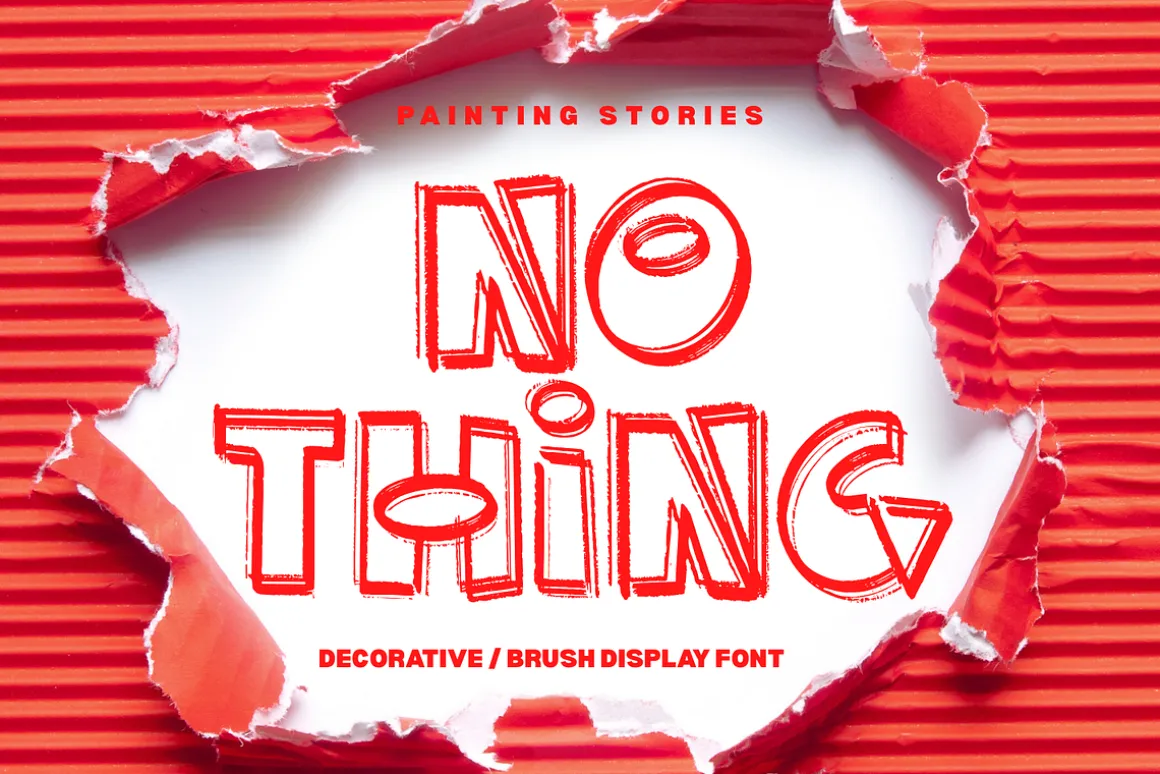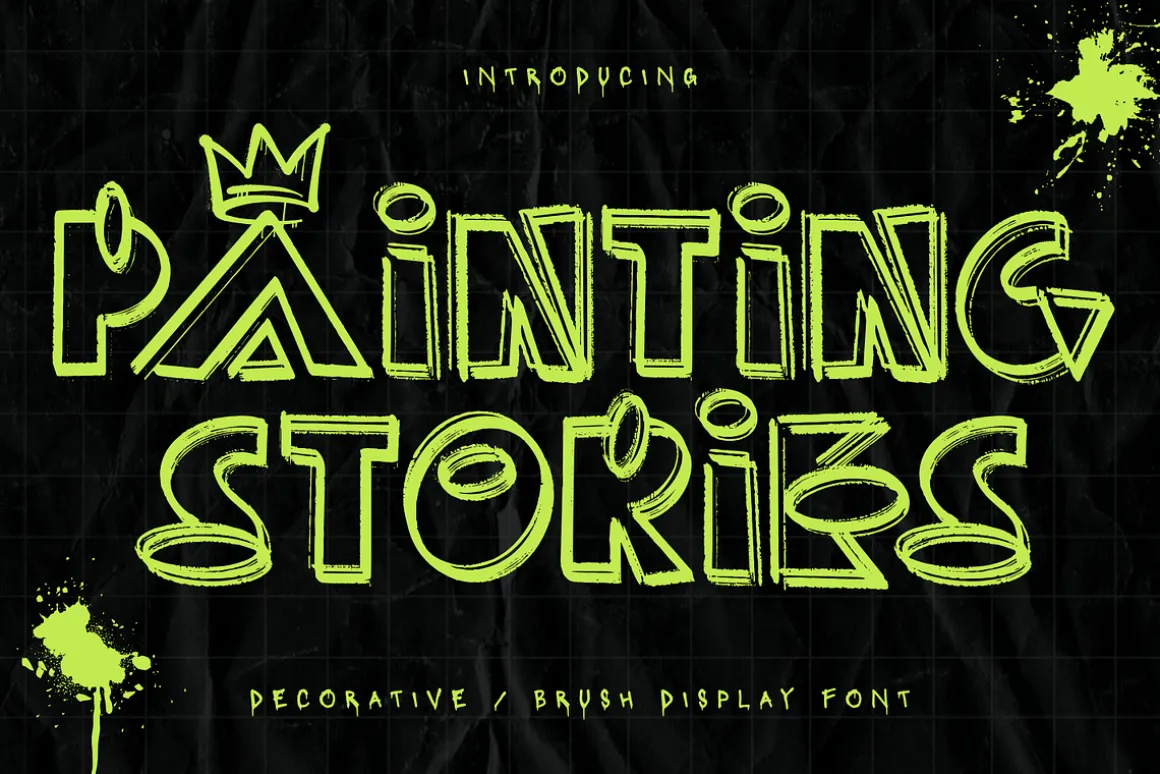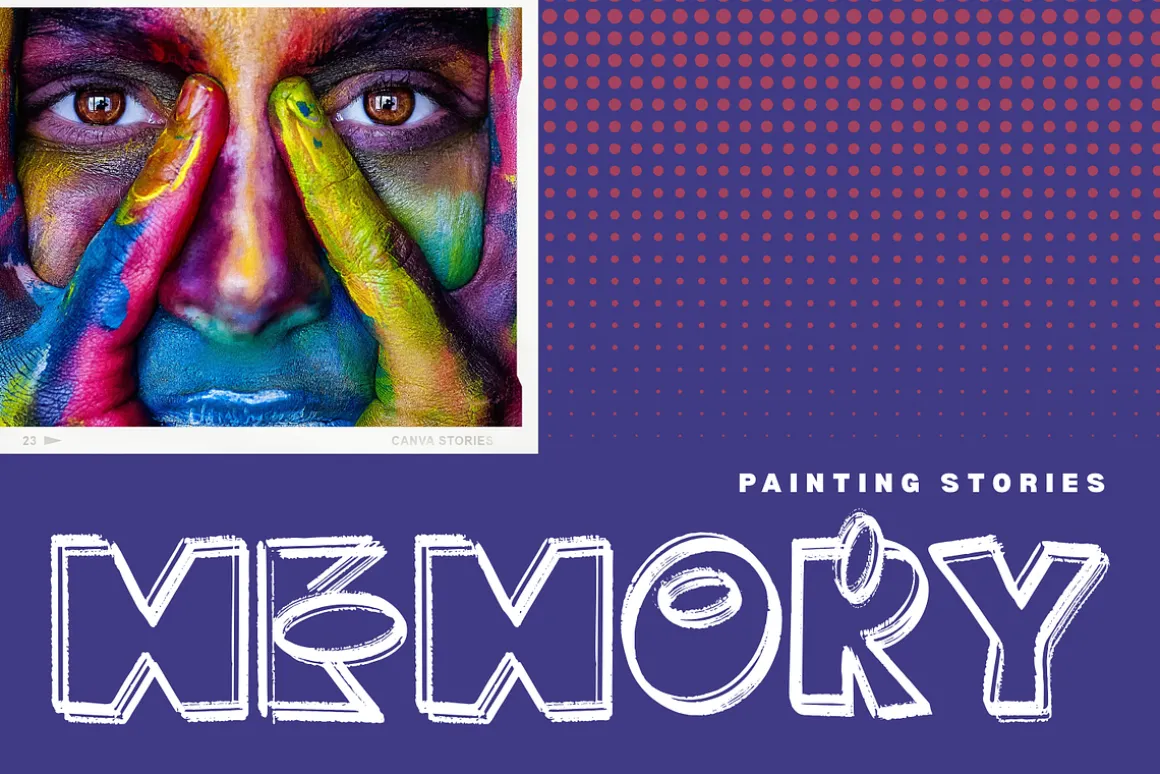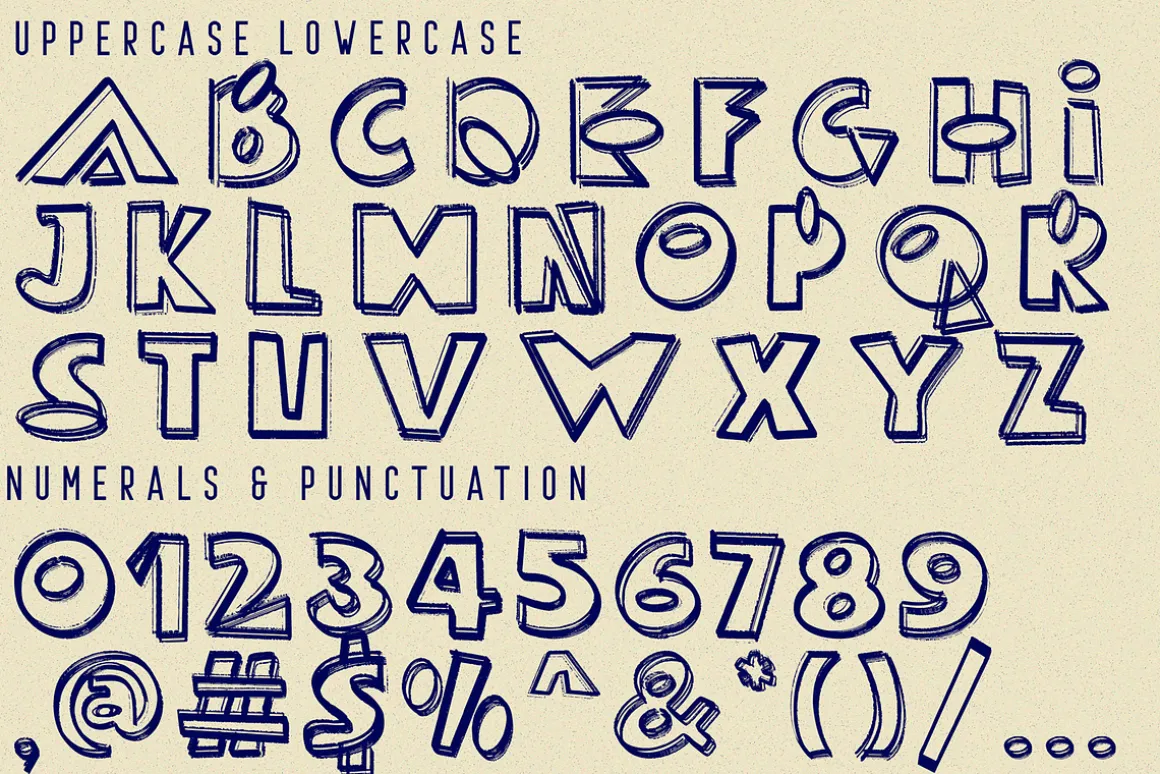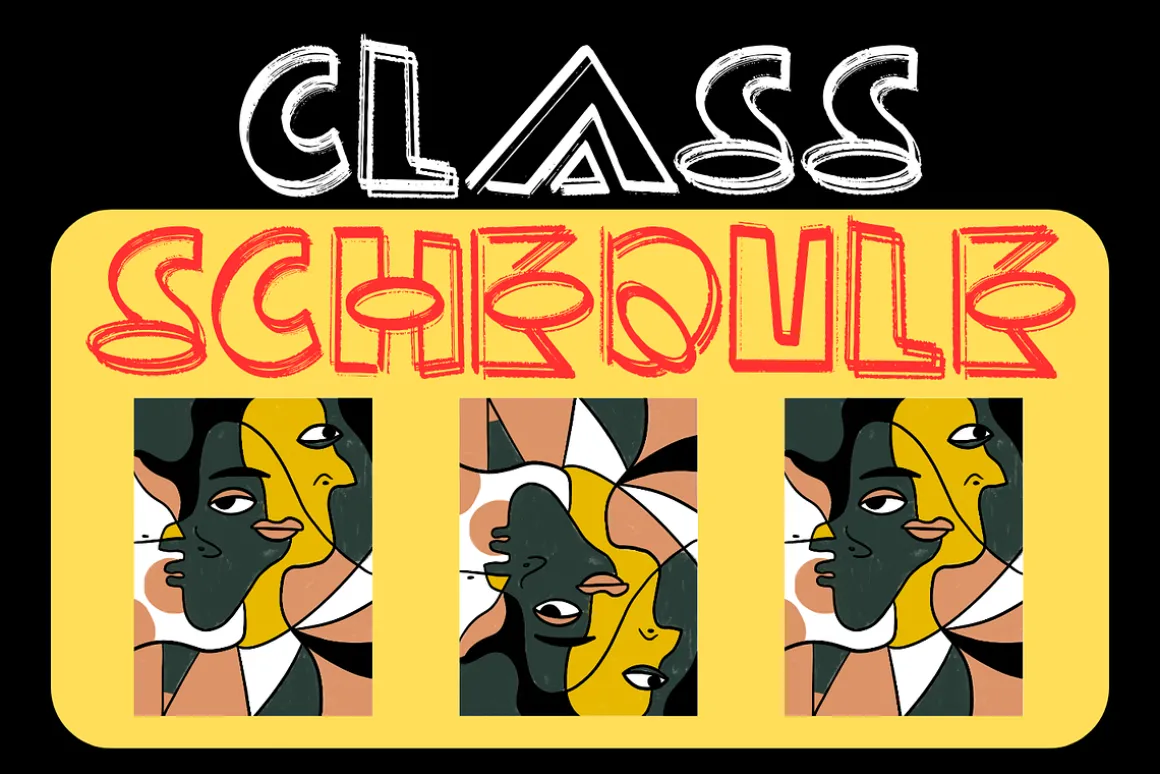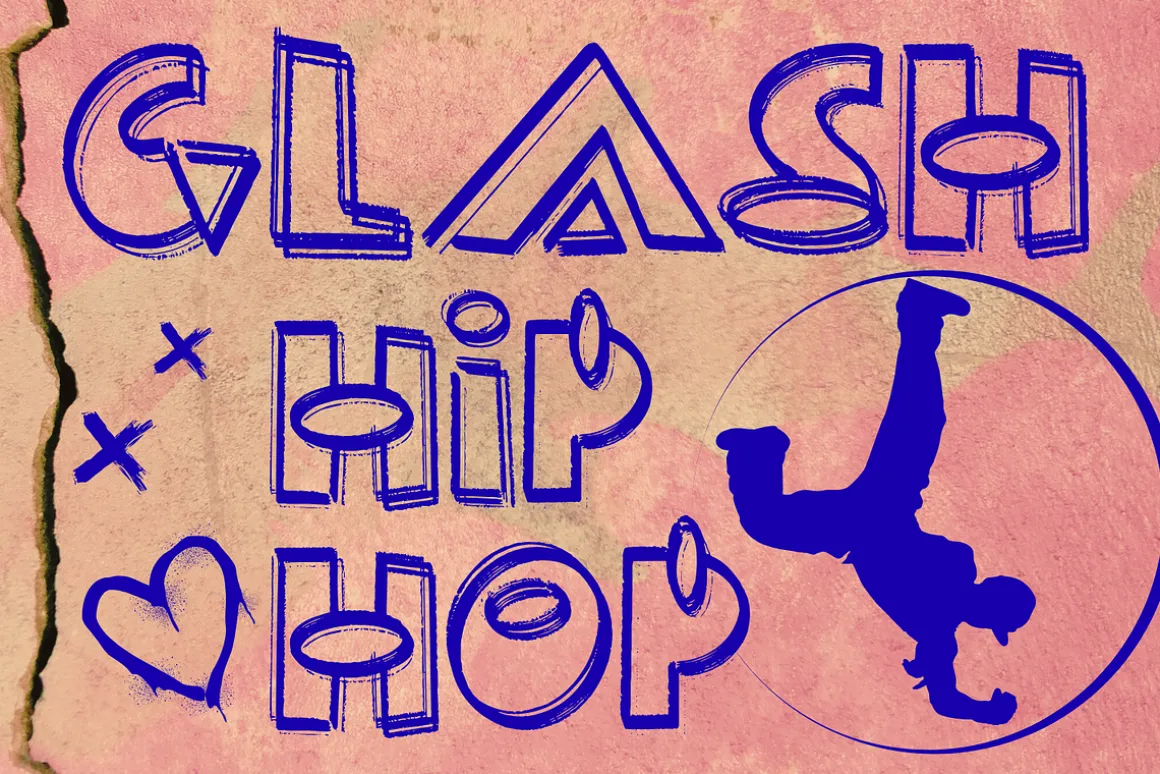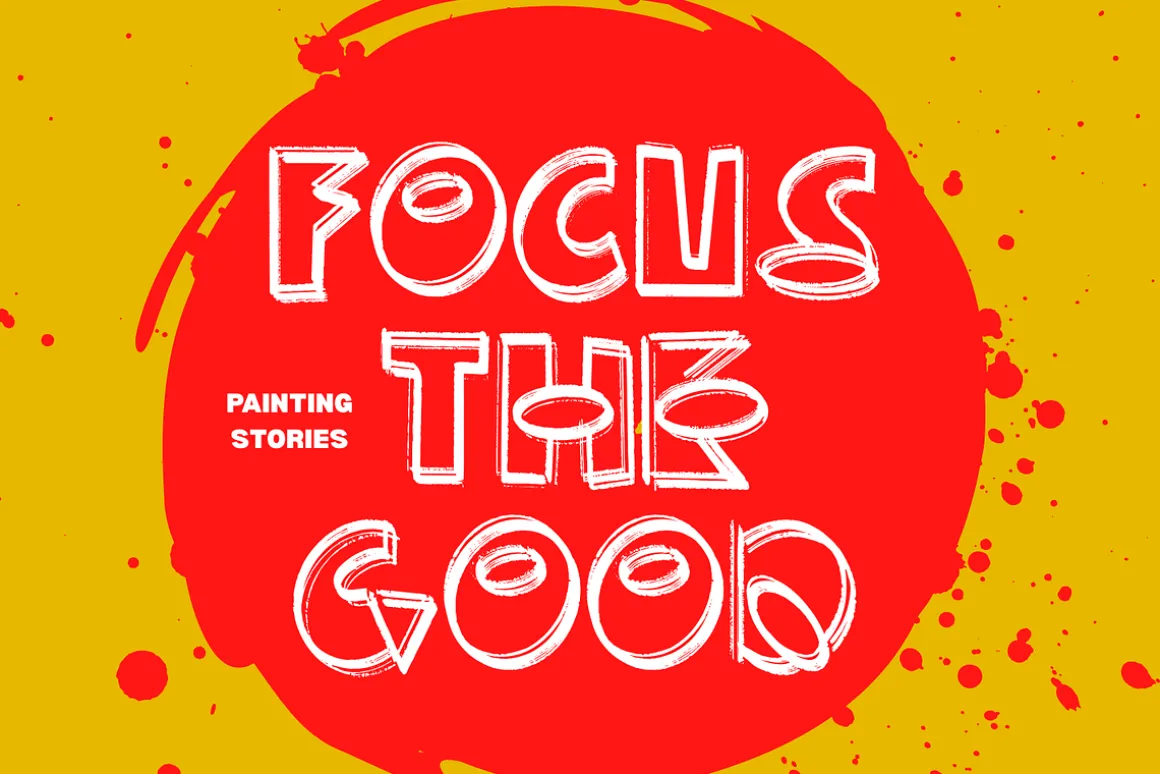
Painting Stories – Hand-Drawn Font – A Bold Graffiti Hand-Drawn Display Font, is a striking graffiti-inspired display font that combines raw street art energy with hand-drawn sketch aesthetics. Each character is crafted with rough strokes, uneven textures, and spontaneous brush-like details, evoking the vibrancy of urban walls and rebellious creativity. This font embodies a gritty yet artistic spirit, making it perfect for music posters, streetwear branding, youth campaigns, editorial headlines, and any design that needs bold impact with a handmade edge.
Font Features:
- Uppercase Letters
- Numerals & Punctuation
- Accented Characters for multilingual support
- Raw hand-drawn alternates for unique compositions